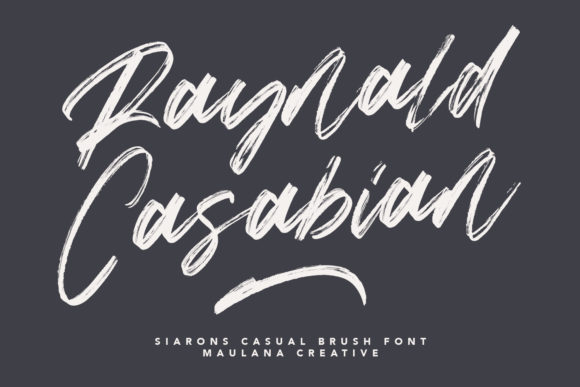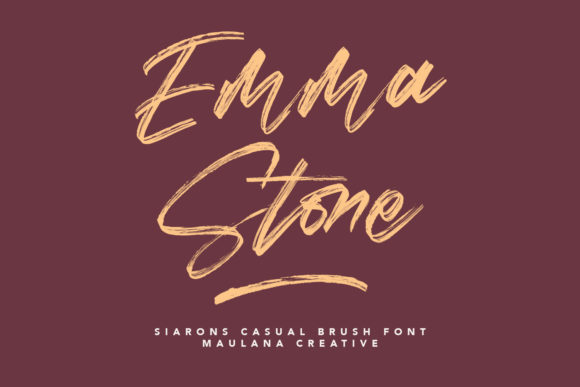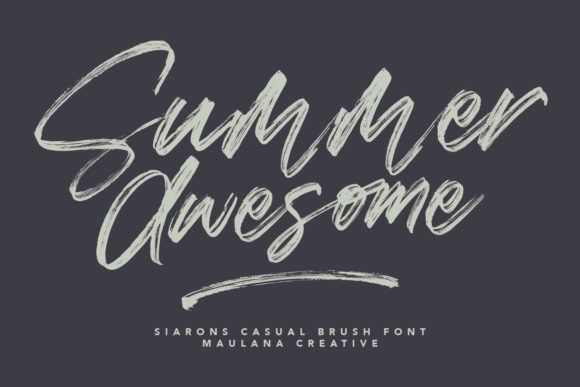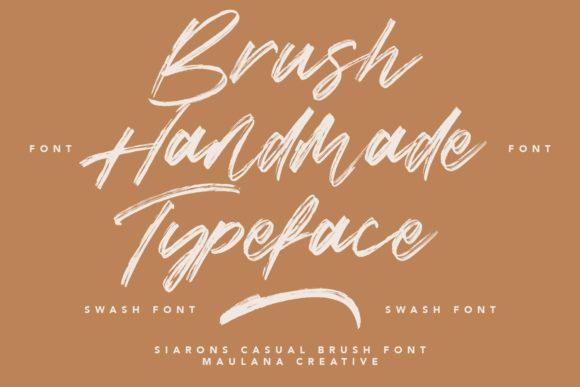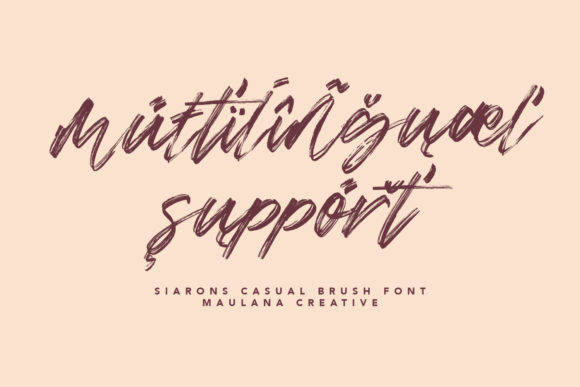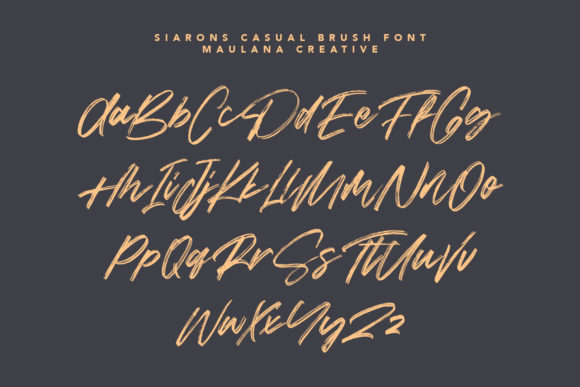
Introduction to Siarons Font
Siarons is a unique handwritten font, created with the help of a rough brush pen.
It is suitable for creating any branding, product packaging, invitation, quote, t-shirt, label, poster, logo that you wish to develop .
Key Features of Siarons Font